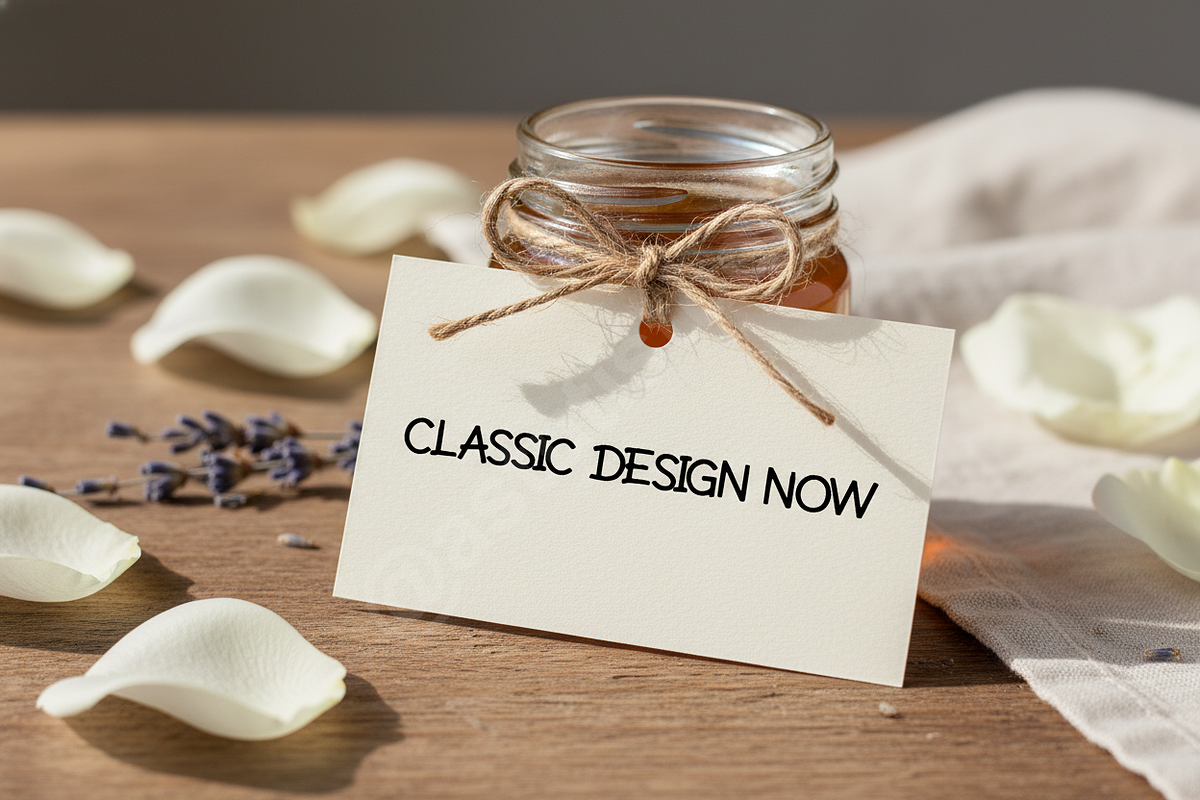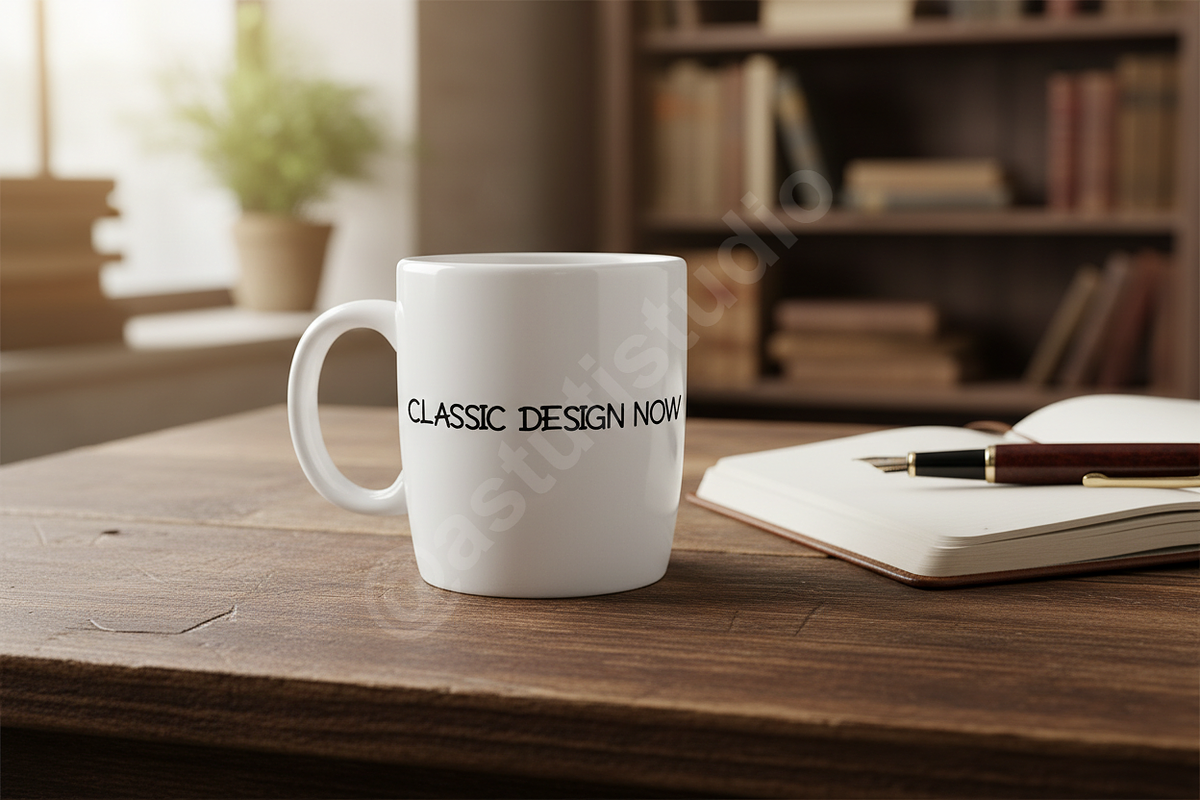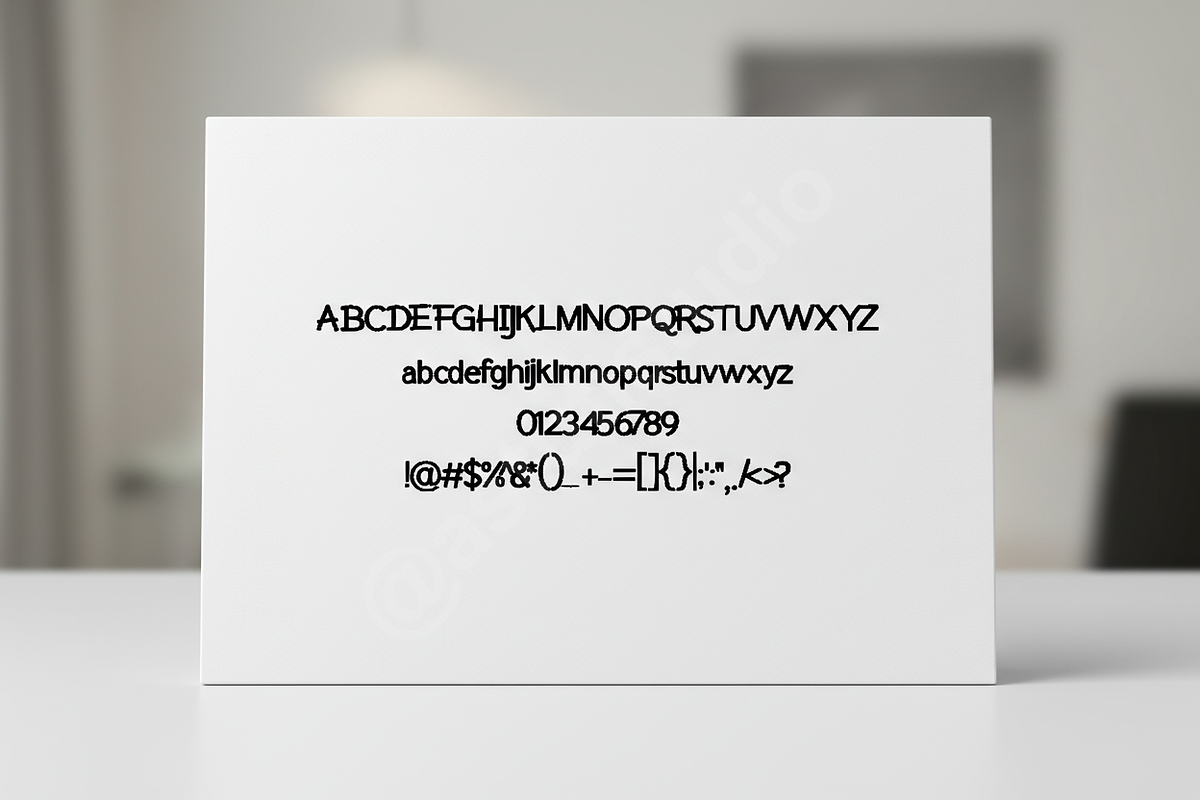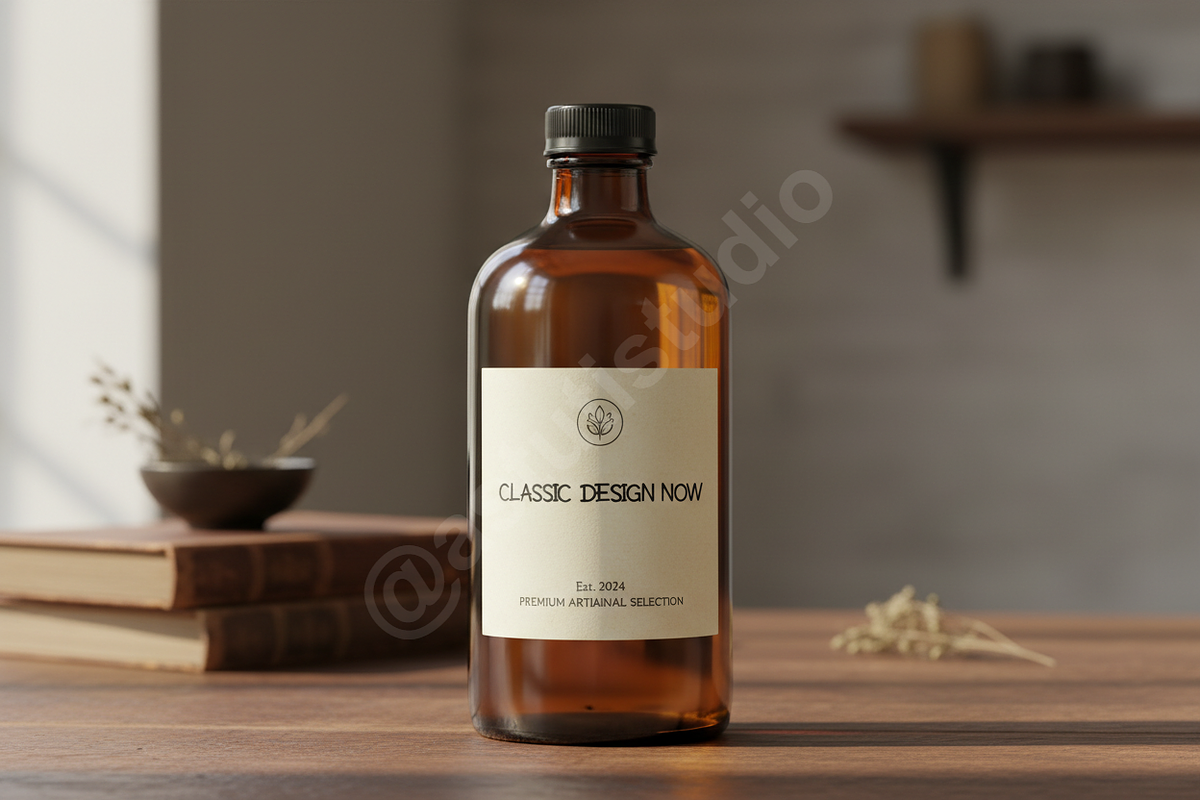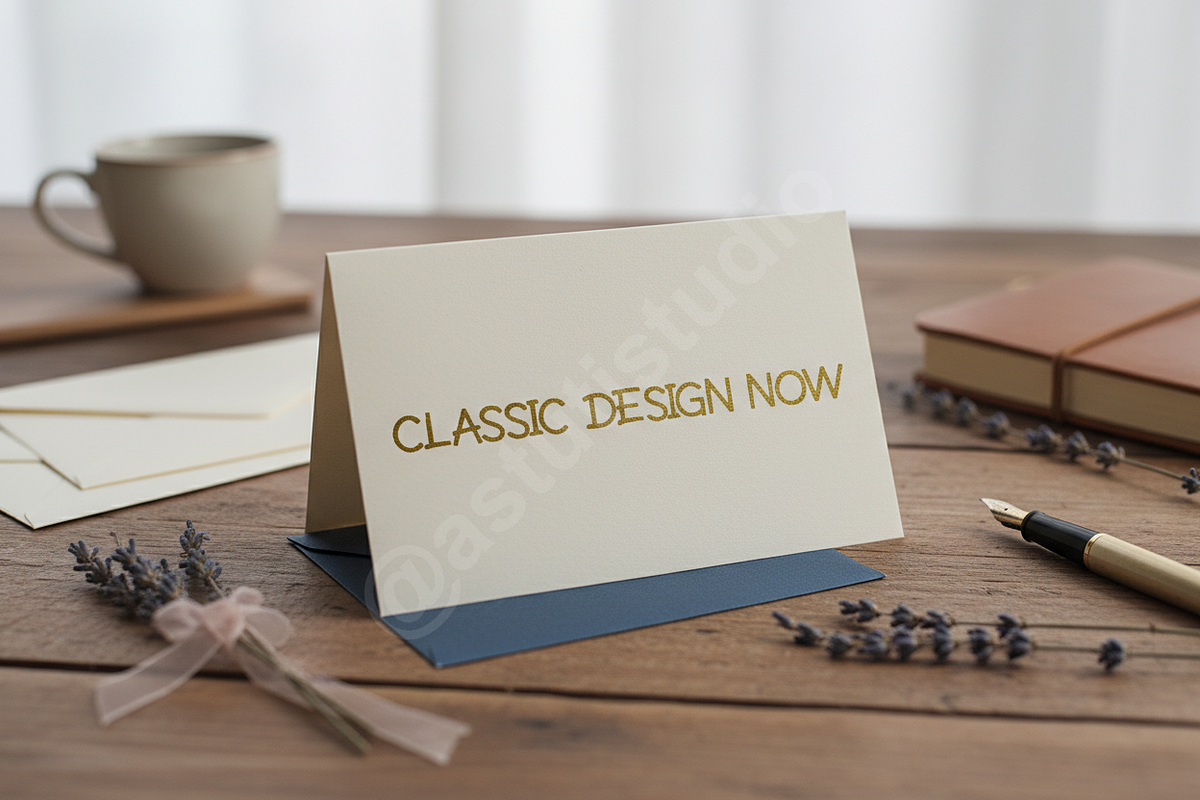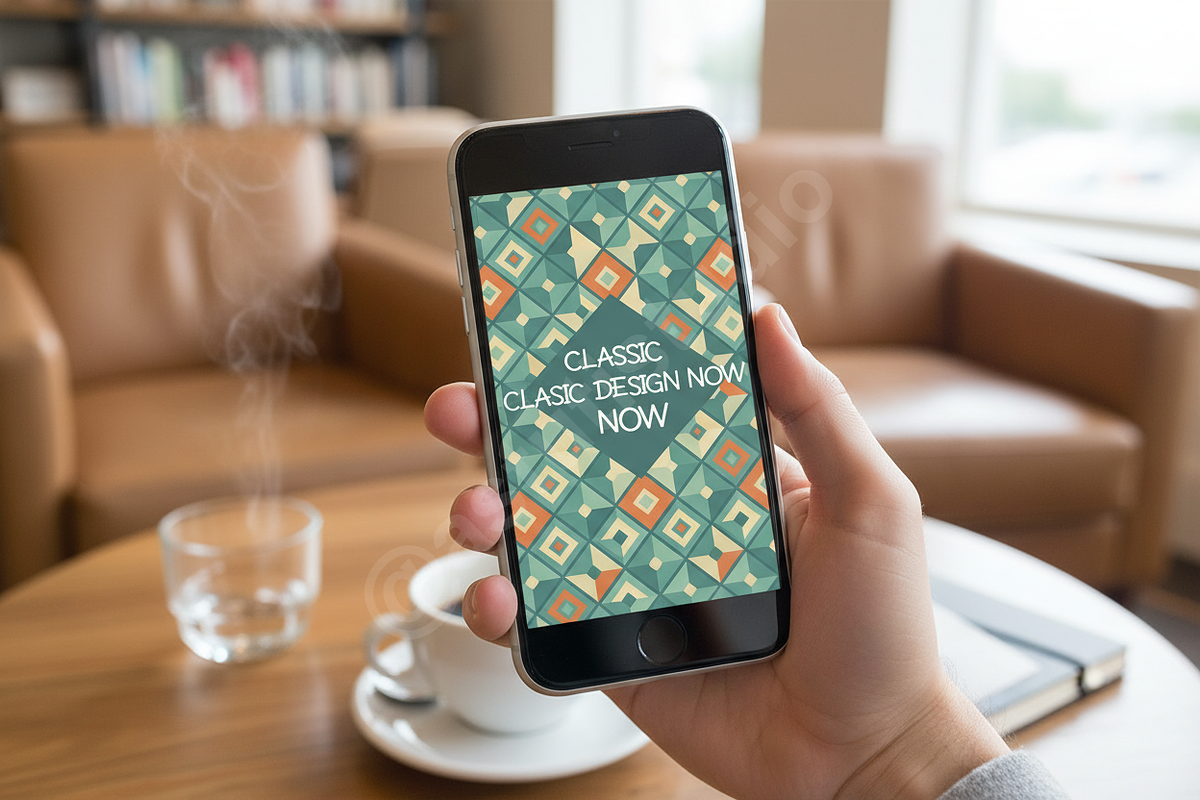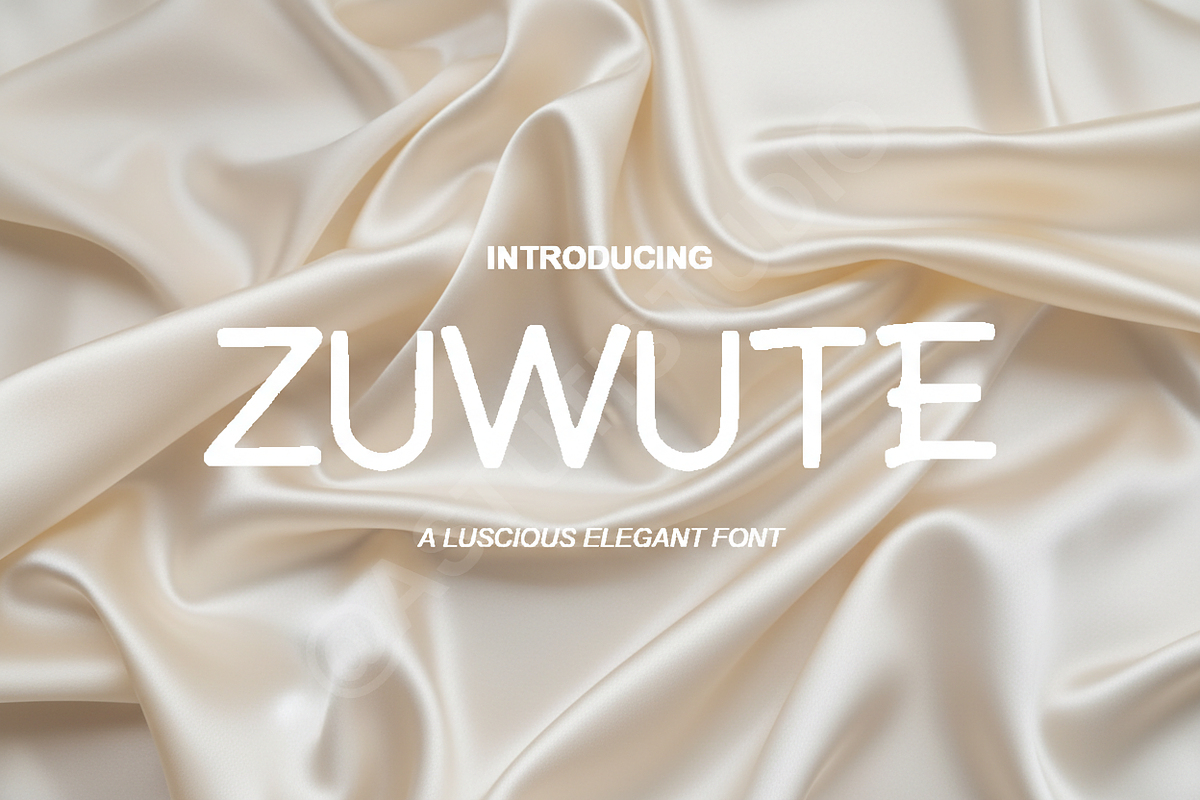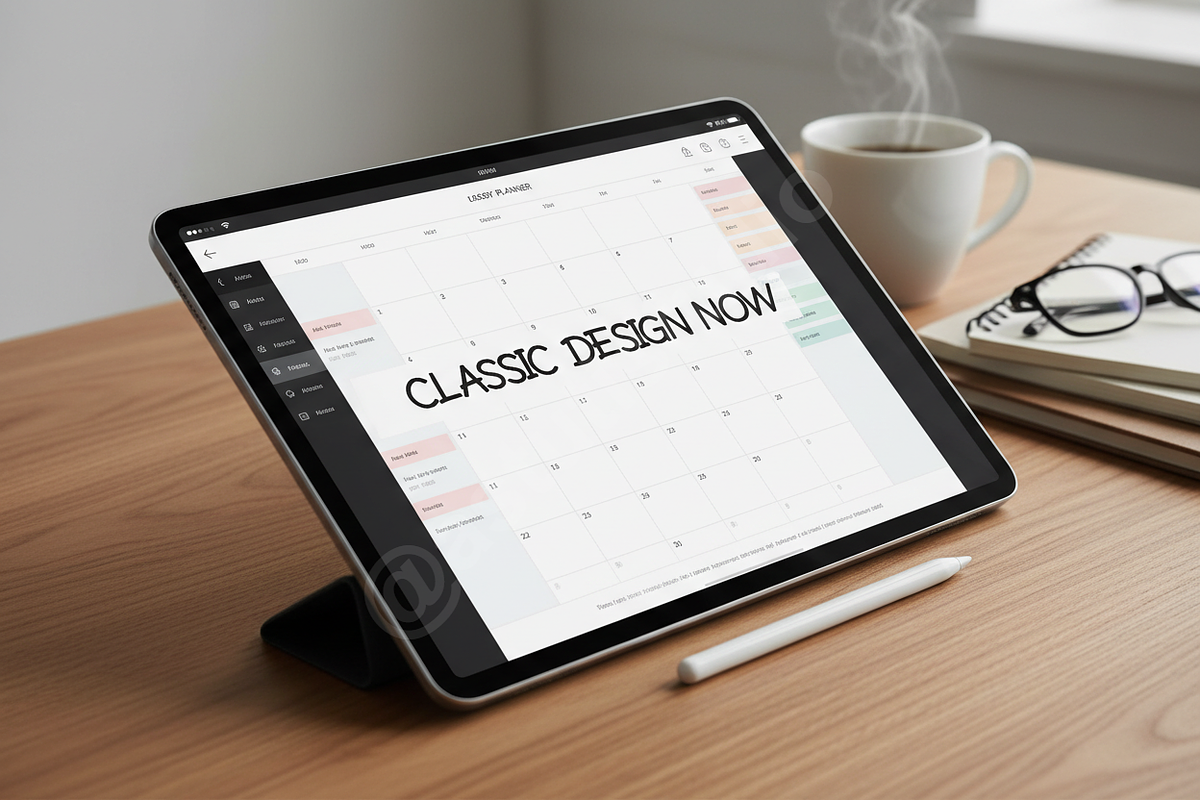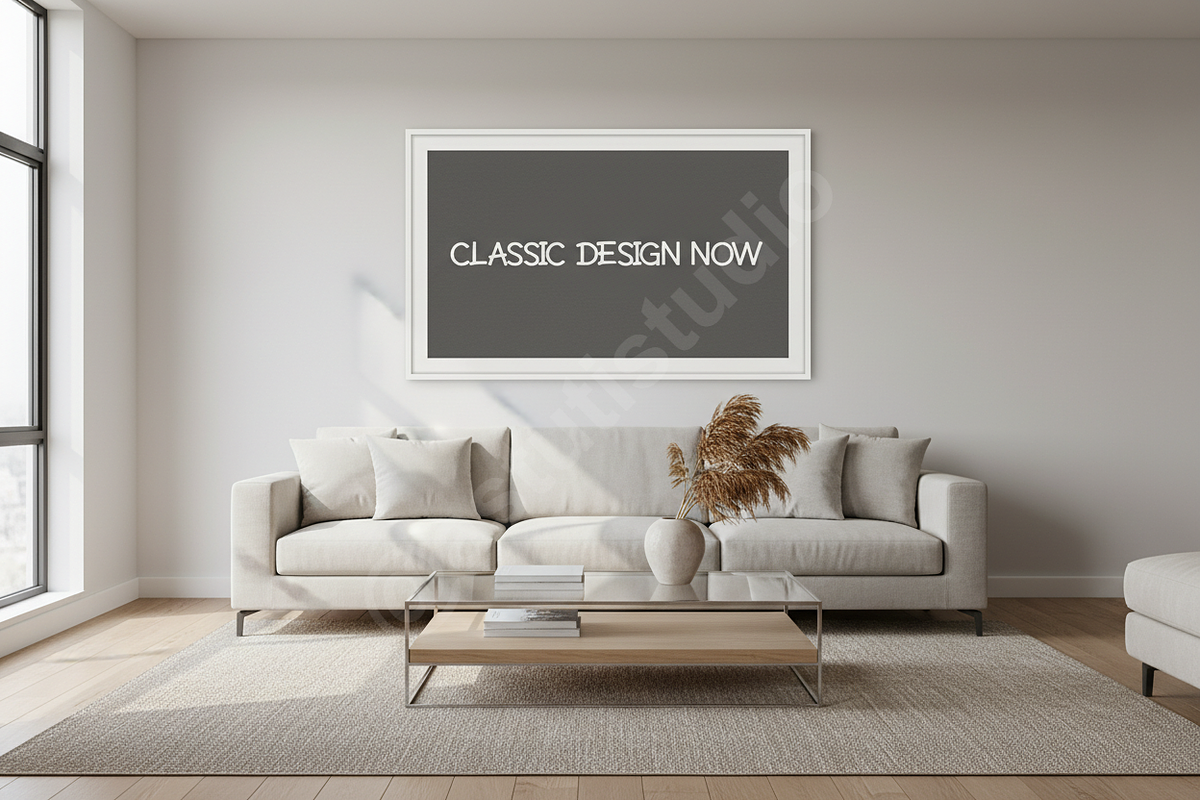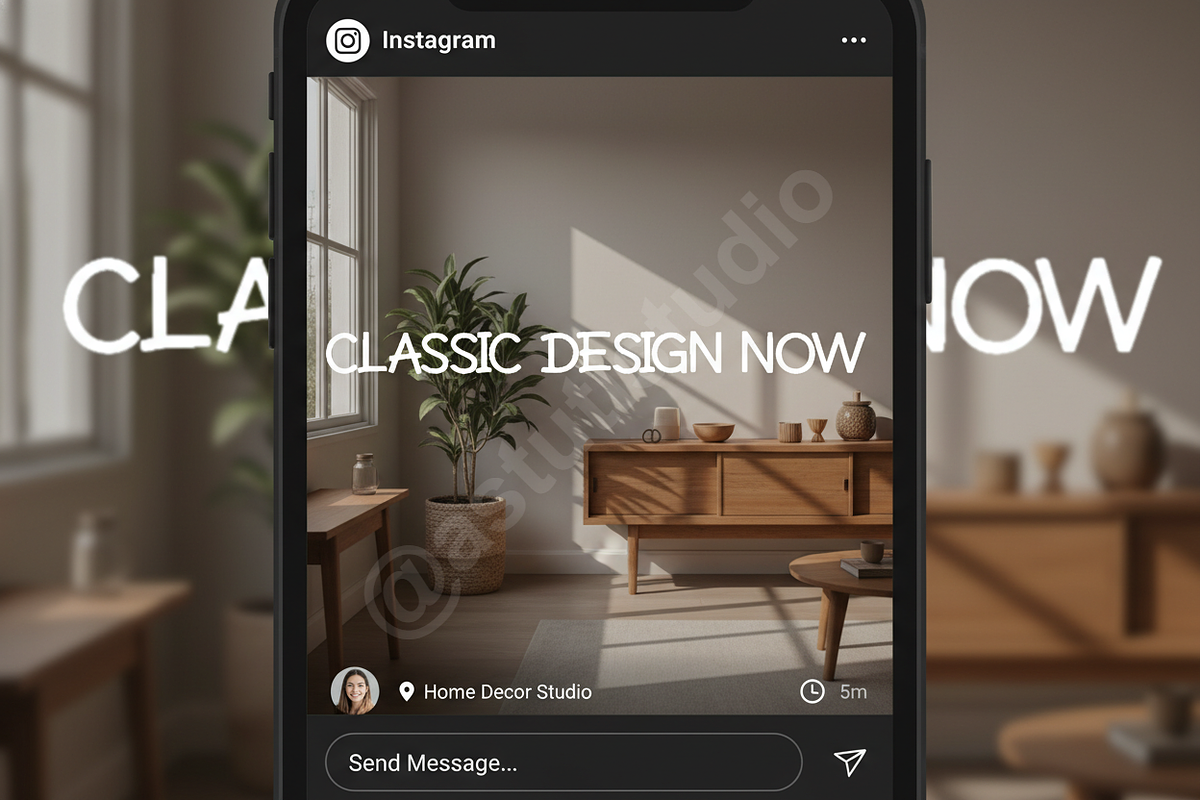
Zuwute – Luxury Modern Display Serif
Introducing Zuwute, a high-contrast modern serif typeface designed for ultimate sophistication. Zuwute captures the essence of classic elegance while providing the clean, contemporary lines required by today's leading brands. Its sharp terminals and graceful curves make it the definitive choice for projects demanding refinement and high visual impact, from glossy magazine layouts to premium digital experiences.
- Luxury Branding Excellence: Perfect for logotypes, high-end packaging, and identity design requiring a premium, timeless feel.
- Editorial & Publishing Ready: Optimized visual weight for stunning magazine headers, article titles, and book covers.
- Social Media Impact: Strong visual presence ensuring stand-out graphics for high-tier campaigns on Instagram, Pinterest, and digital ads.
- Extensive Multilingual Support: Covers a wide range of Western, Central, and Eastern European languages.
- Standard & Discretionary Ligatures: Enhances typographic fluidity and professional polish, creating truly unique letter combinations.
- Full Set of Uppercase, Lowercase, Numerals, and Punctuation.